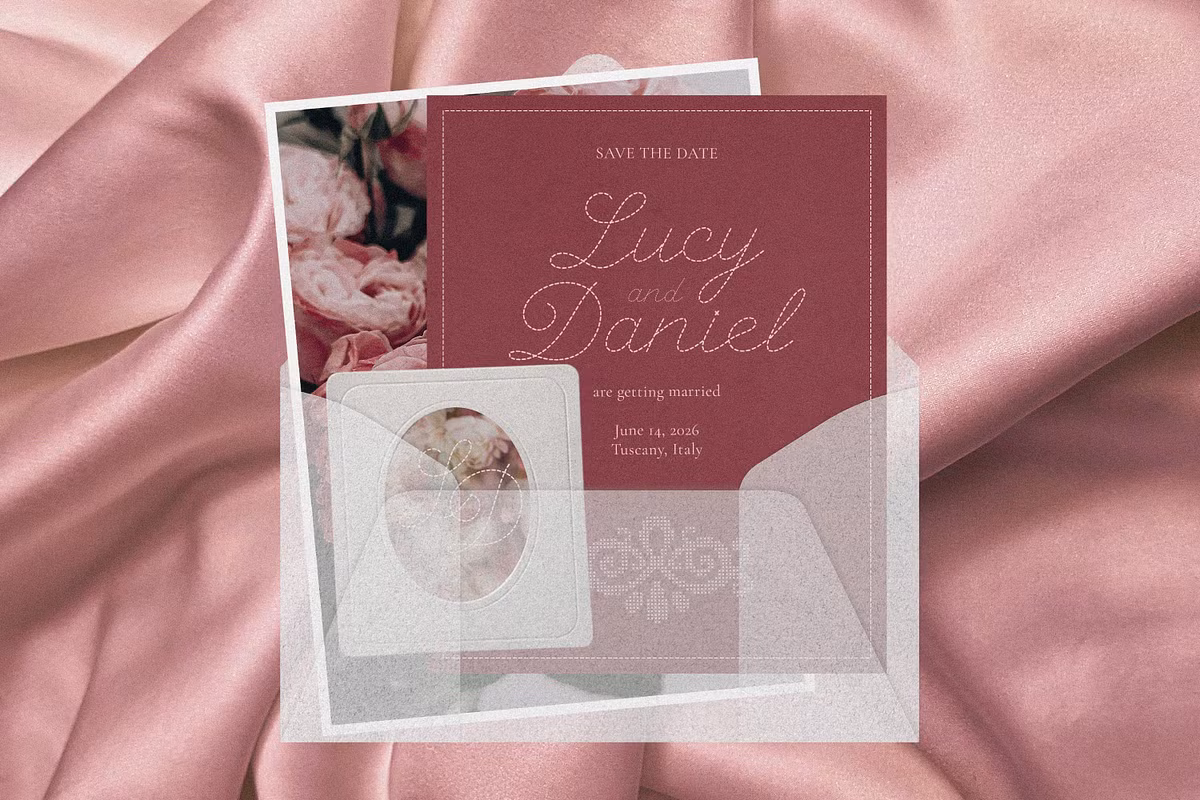
Silk Atelier Stitched Script Font: Elegant Calligraphy for Creative Design
Introduction to Silk Atelier Font
Silk Atelier is a really beautiful font that has a classic, elegant feel to it. It’s like the soft, flowing threads of silk – smooth, refined, and totally sophisticated. This font is perfect for designers who want to add a touch of luxury to their work. The letters are carefully crafted to look like they were made by hand, with gentle curves and precise lines that give off a sense of calm, peaceful movement.
Whether you’re working on a project that needs a delicate touch or something that requires a bit more glamour, Silk Atelier is a great choice. It’s all about capturing the essence of elegance and artistry, and it does a pretty amazing job of it. With its unique blend of style and sophistication, Silk Atelier is sure to make your designs stand out in a beautiful way.
The way Silk Atelier looks is really special – it has beautiful, flowing letters that are nice to look at. There are two ways the font can be used: Regular and Stitched. The Regular way has smooth lines that connect nicely, making it look soft and calm. This style is great for when you want your words to look clean and fancy, like when you’re trying to make something look really elegant and easy to read.
The Stitched style is really different because it takes these smooth shapes and turns them into a pretty, sewn-line look. It’s like the kind of stitching you see on fancy clothes, which adds a nice texture and a homemade feel to your words.
When you use both styles together, you get a lot of options – you can go for a simple, elegant look or a more playful, handmade one, and it’s easy to switch between the two.
Character Sets and Features
The Silk Atelier font is really special because it has a big set of characters that can be used in many different languages and for lots of typographic needs. It includes all the usual things like uppercase and lowercase letters, numbers, punctuation, and even some special characters – all made to look nice and fancy.
This means you can use it for lots of things and it will always look great. The people who made it wanted to make sure it was good for lots of uses, so they included everything you might need.
Silk Atelier has a really cool feature that lets you use two different styles at the same time – Regular and Stitched. This doesn’t just make your designs look better, it also gives you more options for how you want to get your message across with your typography. So, if you want something simple and elegant, or something more complicated and decorative, Silk Atelier can do both easily.
You can use it to create a straightforward look or a more intricate feel, depending on what you’re going for. This flexibility is really useful, because it means you can use Silk Atelier for a lot of different projects and still get great results.
Use Cases for Silk Atelier
Silk Atelier is a really versatile font that can make a lot of different projects look great. There are many ways to use this font, and here are some of the most notable ones where it really stands out.
- The smooth lines of Silk Atelier give it a classy look that’s just right for designing logos, helping companies show off their stylish and imaginative side.
- For your special day, Silk Atelier brings a sense of elegance and sophistication to your wedding stationery, including invitations and save-the-dates, making each piece truly personal and romantic.
- Branding: Whether creating a brand identity from scratch or enhancing an existing one, Silk Atelier’s unique character set provides options for memorable branding.
- The style of the font is really great for making things look nice on packages, like for clothes, makeup, and handmade stuff. It makes the whole product look better.
- Social Media Content: In the digital age, Silk Atelier can be used for eye-catching posts and stories that require distinct and stylish typography.
- Fashion Editorials: The font’s elegance makes it suitable for use in magazines and online platforms focusing on fashion and lifestyle, where aesthetics are crucial.
To maximize the impact of Silk Atelier in your designs, consider pairing it with complementary fonts that enhance its elegance while providing contrast. Here are some pairing suggestions:
- You can pair Silk Atelier with a simple font like Montserrat or Lato to get a modern look. This combination works well because the clean lines of the sans-serif font balance out the fancy style of the calligraphy, giving it a contemporary feel.
- For a timeless look, pair Silk Atelier with a classic serif font, such as Playfair Display or Merriweather – this will bring a sense of traditional sophistication to your designs, making them feel elegant and refined.
- Minimalist Fonts: Fonts like Raleway or Open Sans can provide a minimalist contrast to Silk Atelier, allowing the calligraphy to stand out without overwhelming the design.
Silk Atelier is a really nice font that can add a touch of elegance to any design. It’s special because it has two different styles, Regular and Stitched, which makes it useful for a lot of different projects. You can use it to create fancy brands or cute wedding invitations.
The letters are pretty and the font has a lot of different characters, so designers can use it to make their work look refined and unique. Silk Atelier is a great tool for designers who want to make their work stand out and show off their personality. It’s a way to make your designs look beautiful and creative.